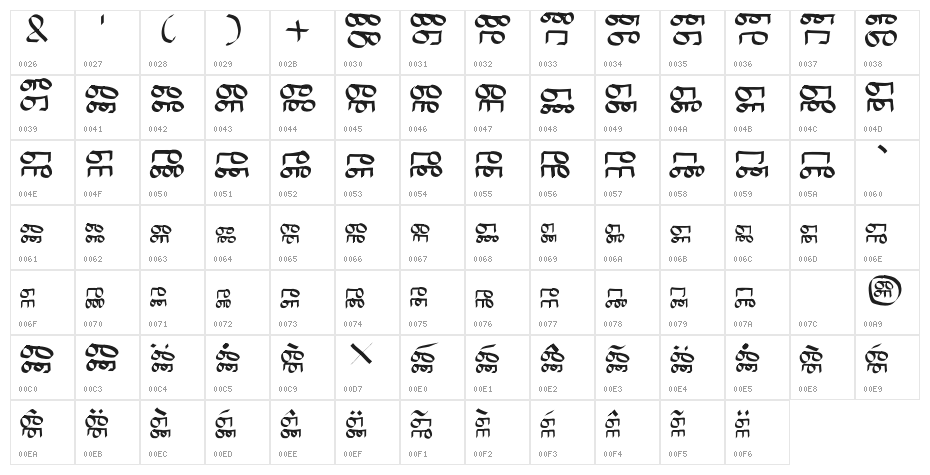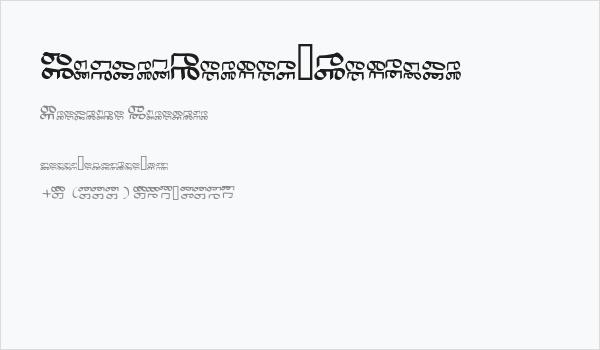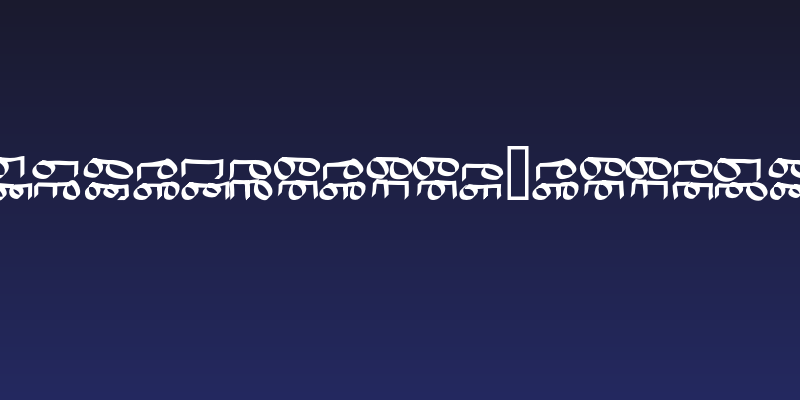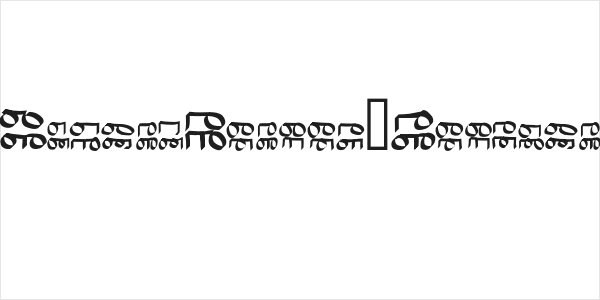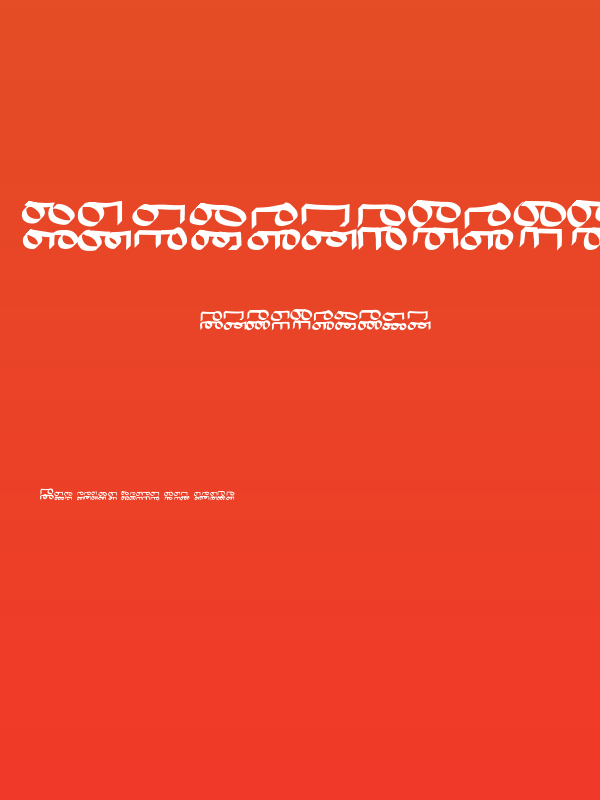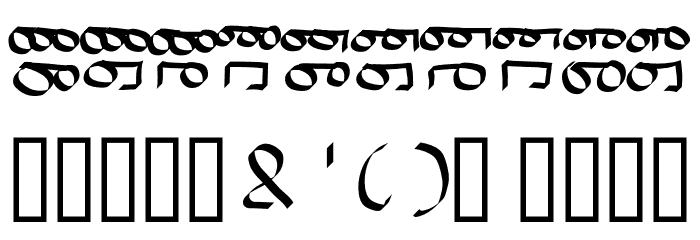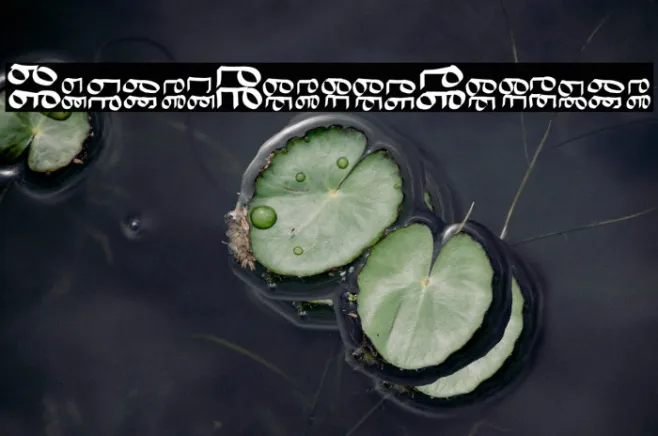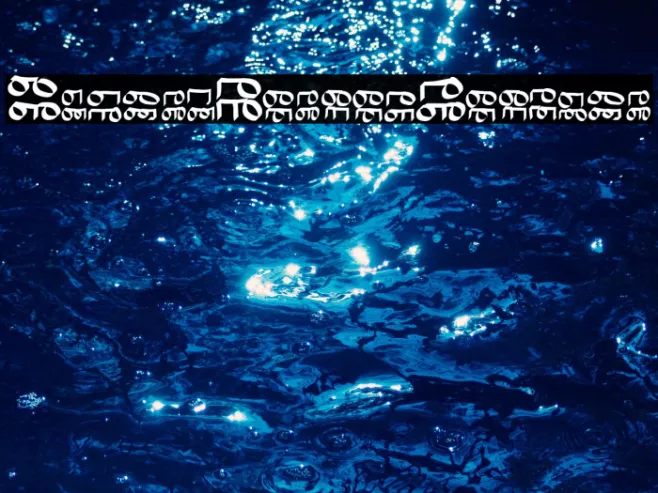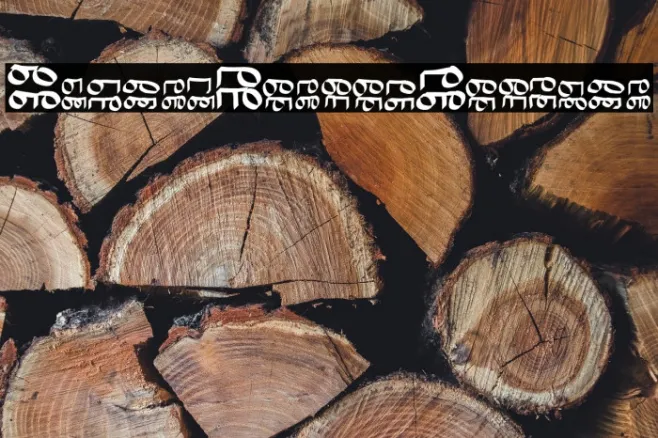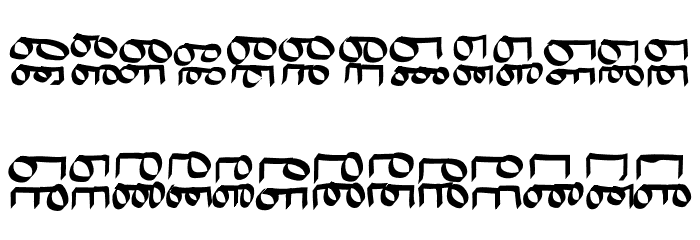
BinaryVerges-Regular Font
BinaryVerges-Regular Description
This font features a highly decorative and abstract design, characterized by its unique and unconventional shapes. The characters are composed of loops and angular lines, creating a futuristic and cryptic appearance. The style is reminiscent of digital or alien scripts, with a strong emphasis on geometric forms. The font lacks traditional readability, making it more suitable for artistic or thematic projects rather than standard text. Its bold and striking design makes it ideal for creating a visual impact.
| Overall Style | Futuristic, Abstract |
| Use Case | Logos, Posters, Artistic Designs |
| Proposed Projects | Ideal for sci-fi themed designs, artistic posters, or branding that requires a unique and futuristic look. |